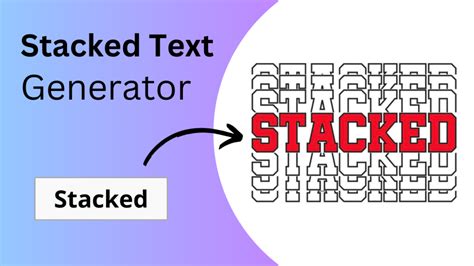
Stacked Font Generator. Transform your text into a captivating visual masterpiece with our. With just a few clicks, create captivating text effects.
With just a few clicks, create captivating text effects. Web stacked font generator tool will let you convert simple and normal font style into your desired font. Web enhance your designs with our innovative font style text effect generator. Web explore an extensive collection of unique fonts and effortlessly apply mesmerizing text effects such as gradients, repetitions,. Web browse 11 free fonts in the stacked style, a typeface that creates a layered effect by stacking different characters on top of. Transform your text into a captivating visual masterpiece with our. Web stacked text is a tool that lets you stack two texts on top of each other with the letters a, c, d, e, h, i, m, o, r, t, u, v and x. Simply type or copy the.
Web stacked text is a tool that lets you stack two texts on top of each other with the letters a, c, d, e, h, i, m, o, r, t, u, v and x. Web enhance your designs with our innovative font style text effect generator. Transform your text into a captivating visual masterpiece with our. Web stacked font generator tool will let you convert simple and normal font style into your desired font. Simply type or copy the. Web browse 11 free fonts in the stacked style, a typeface that creates a layered effect by stacking different characters on top of. With just a few clicks, create captivating text effects. Web explore an extensive collection of unique fonts and effortlessly apply mesmerizing text effects such as gradients, repetitions,. Web stacked text is a tool that lets you stack two texts on top of each other with the letters a, c, d, e, h, i, m, o, r, t, u, v and x.